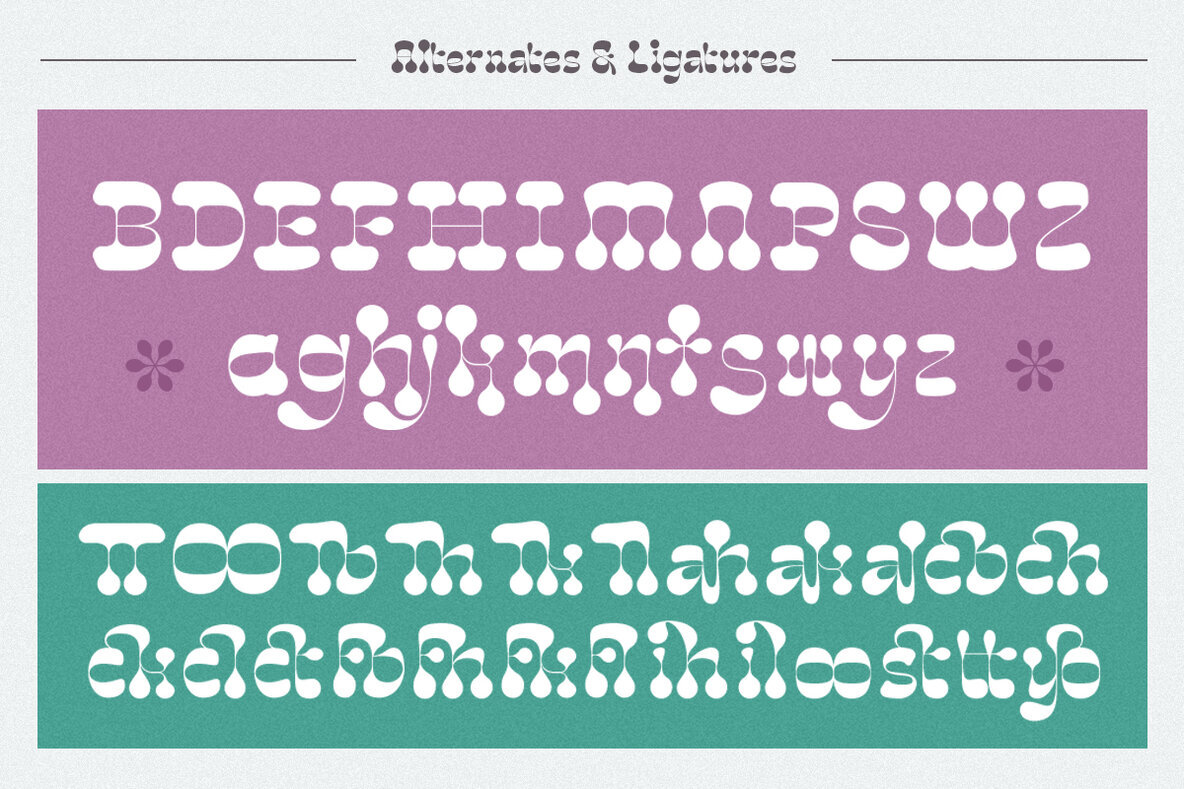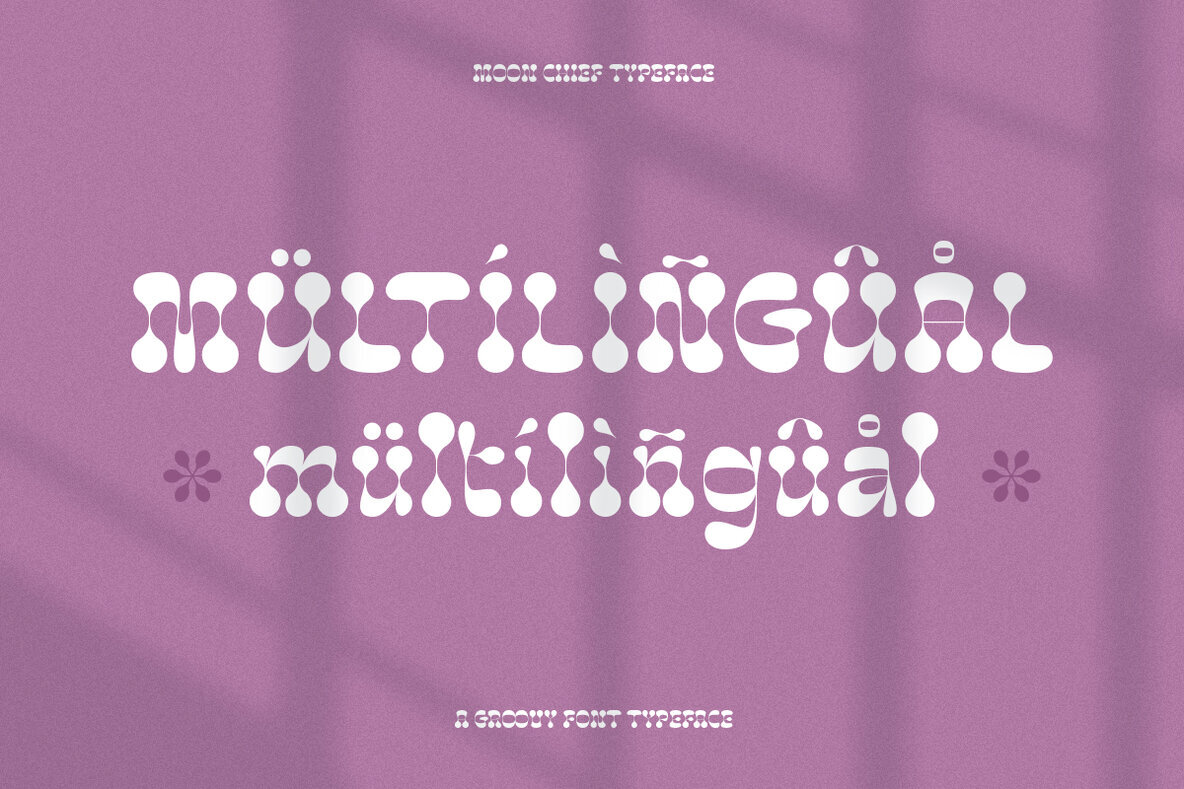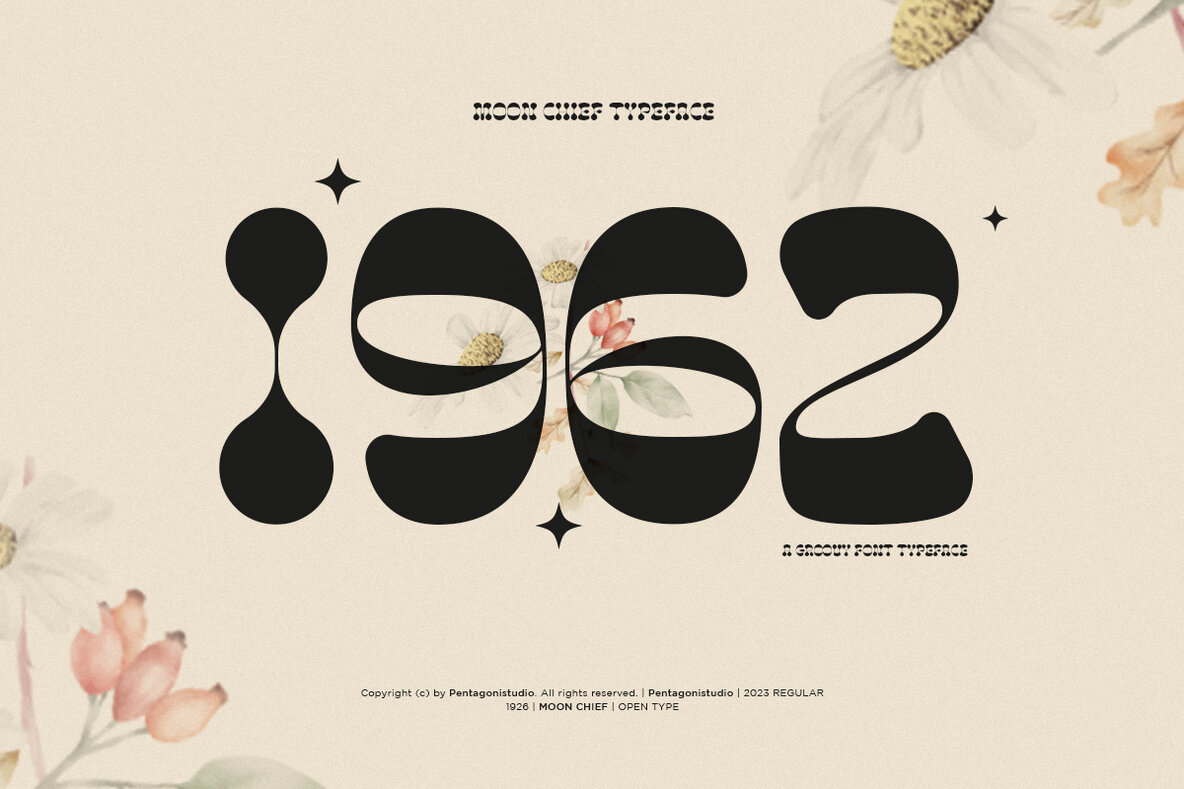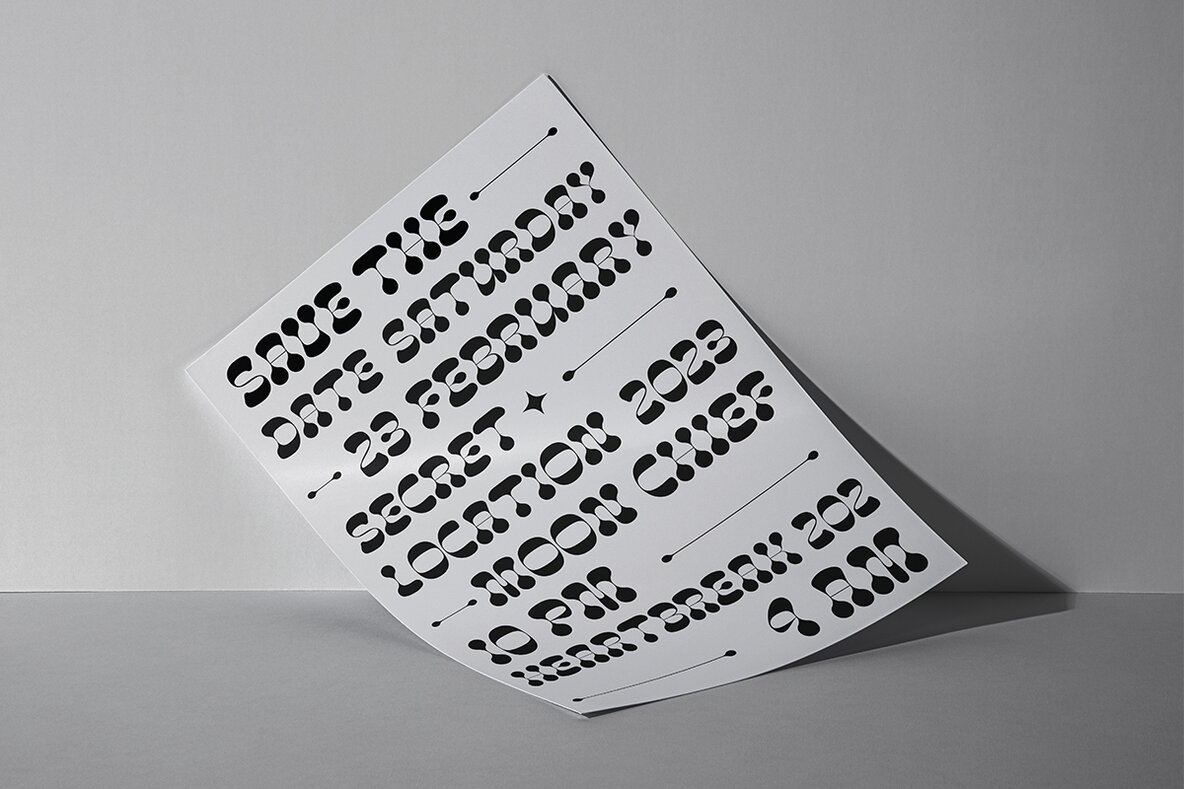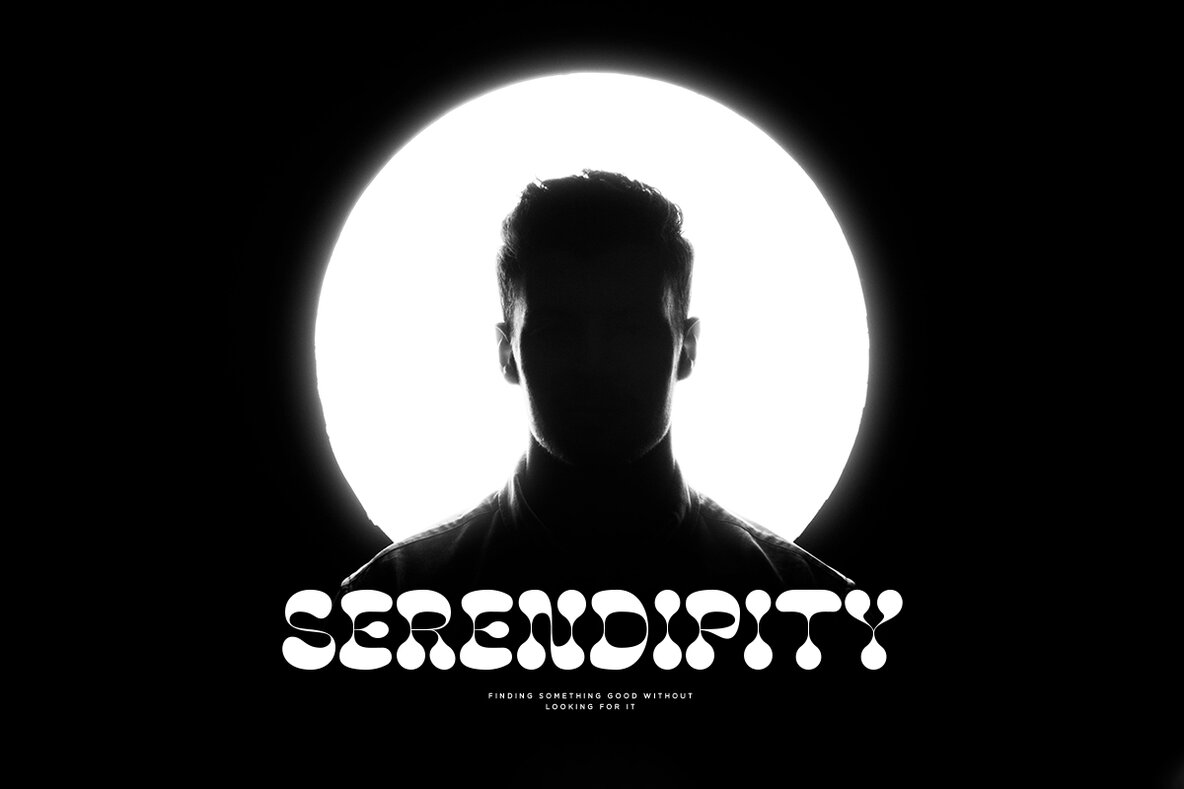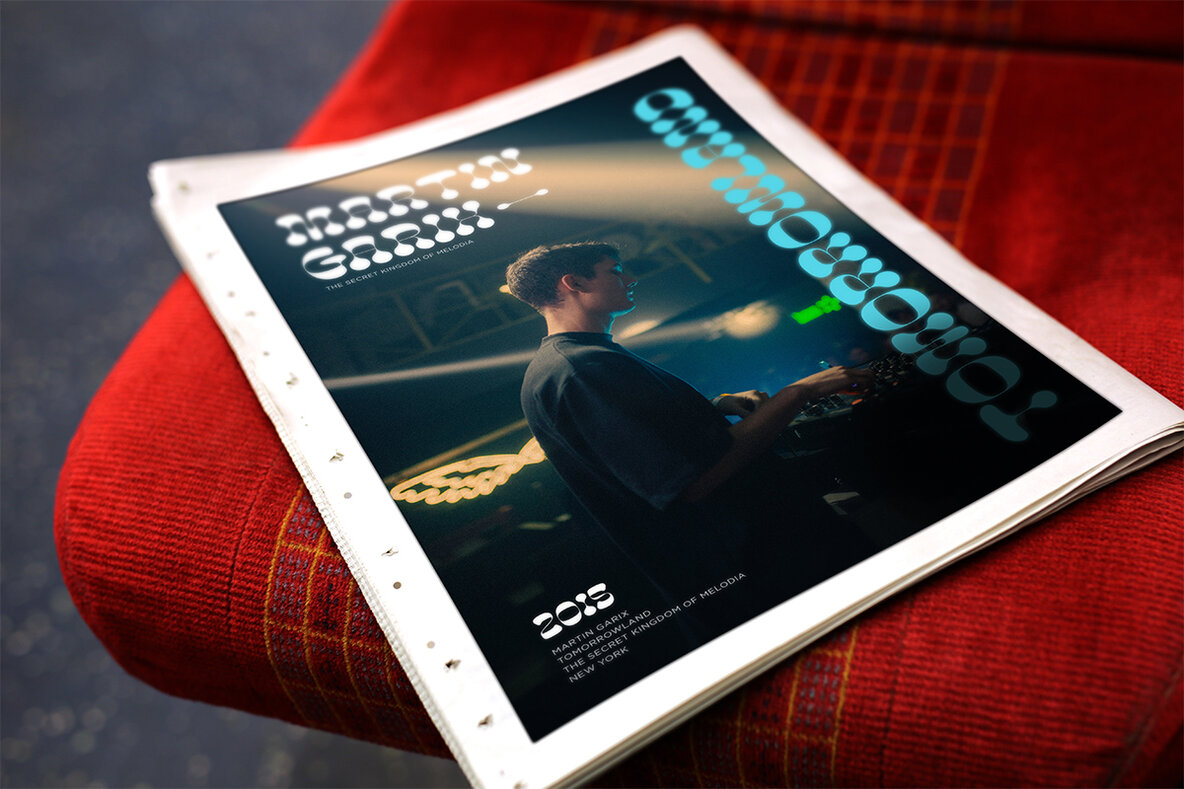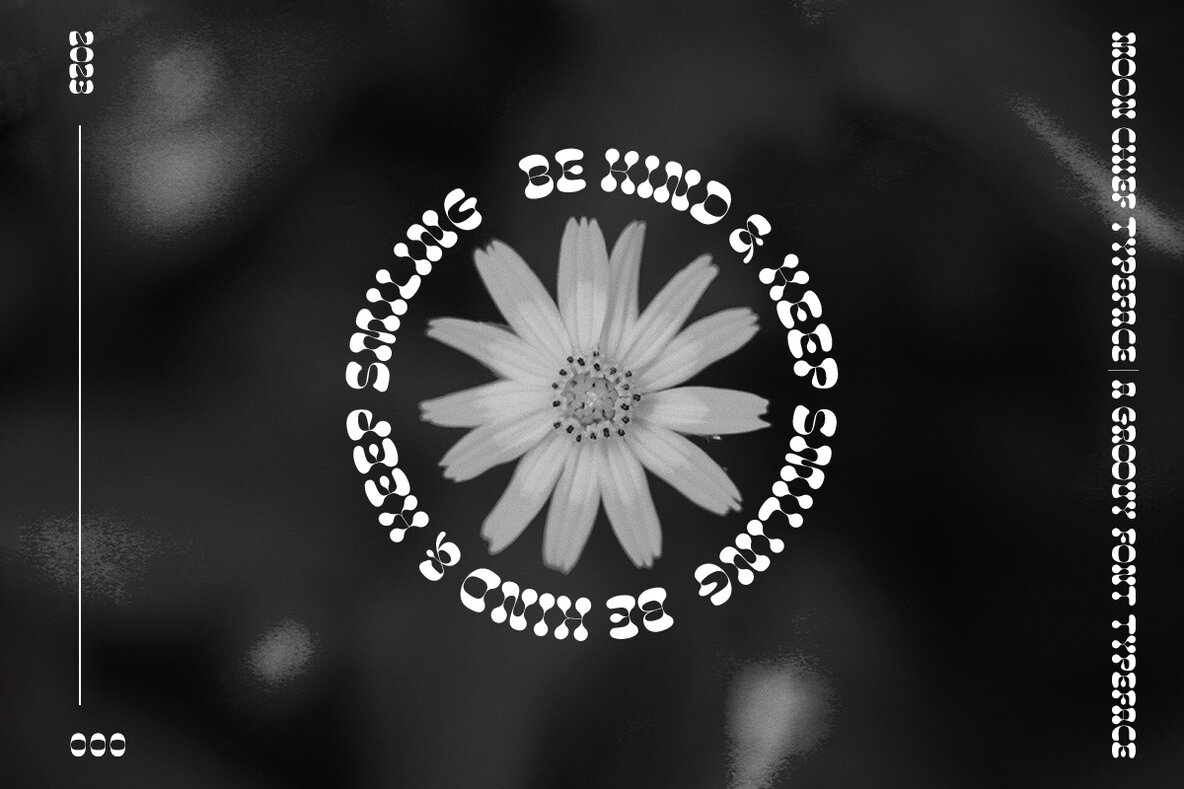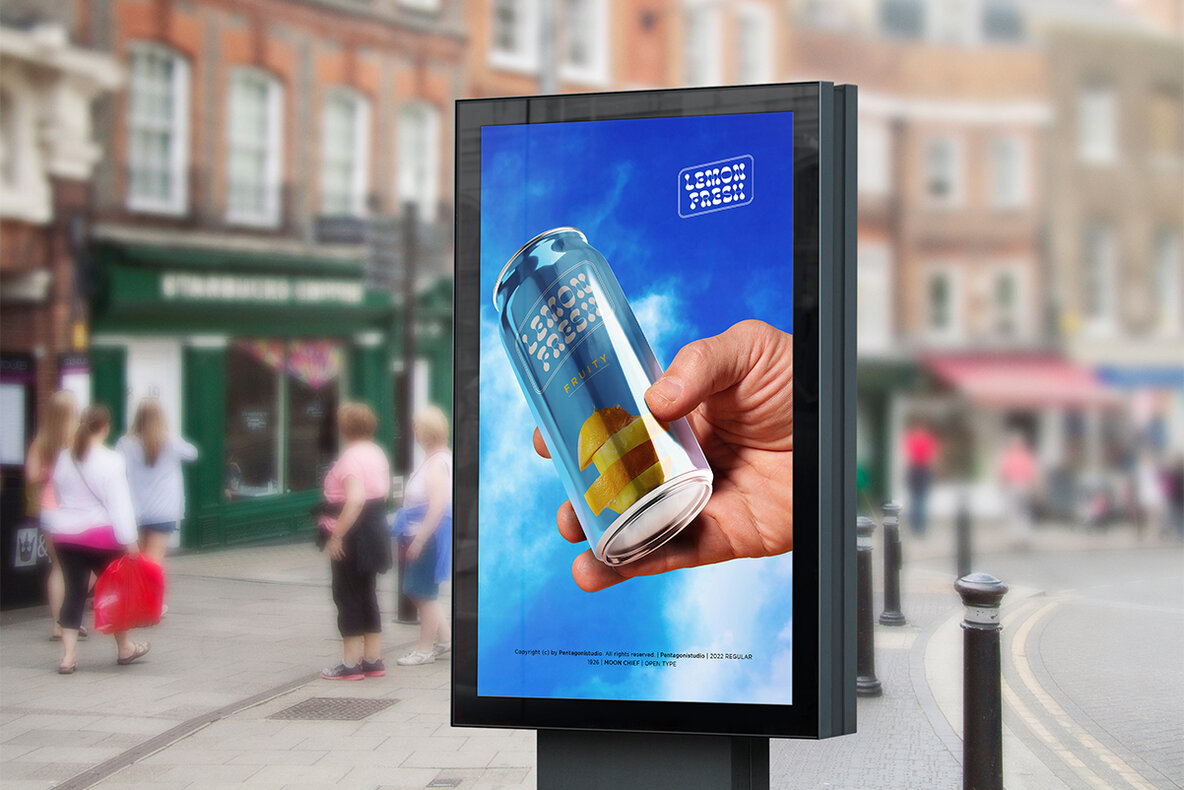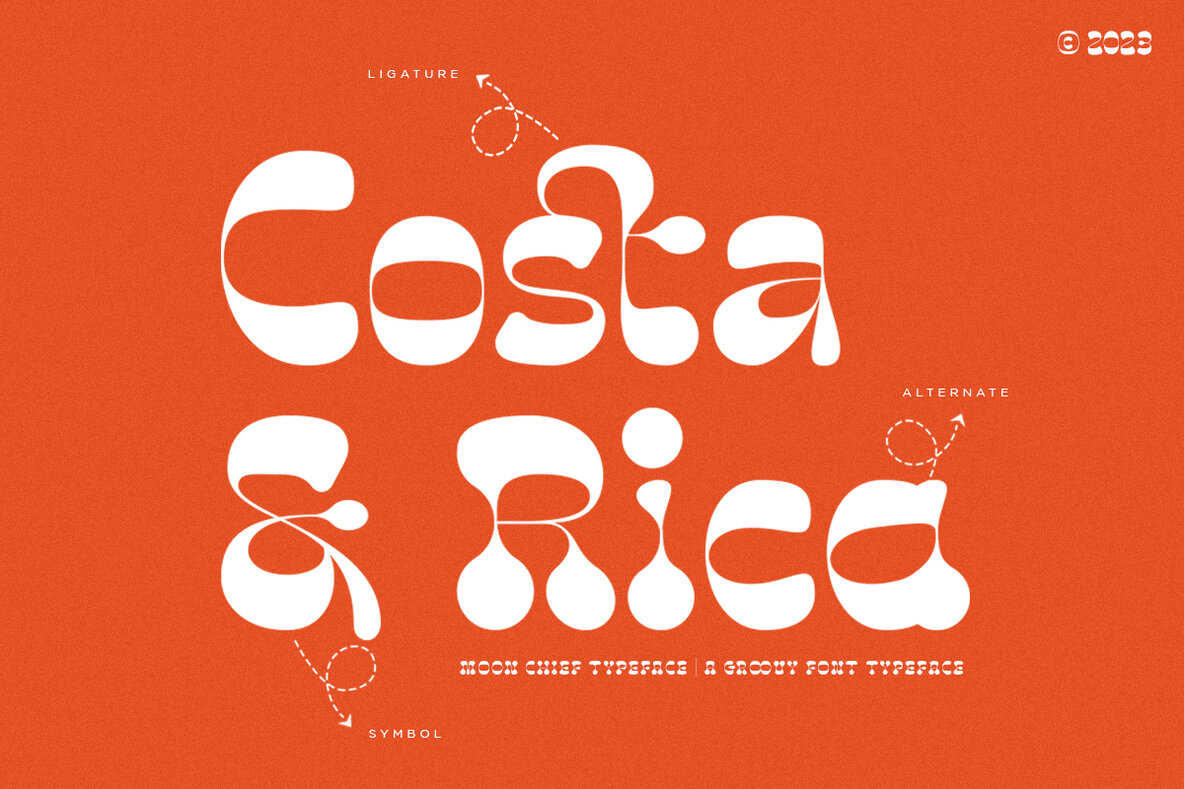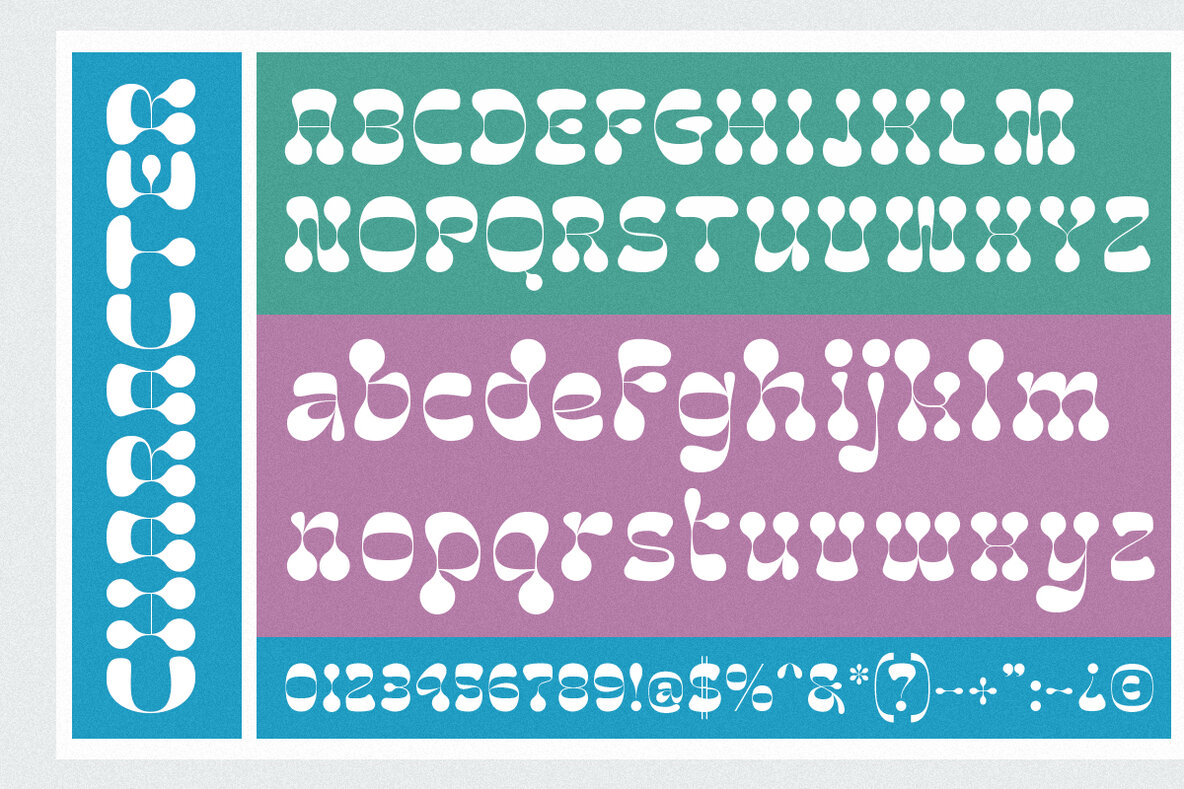
Moon Chief Font
MoonChief
Moon Chief is a display typeface that draws its aesthetic roots from retro and vintage styles, breathing new life into design projects seeking a groovy flair. Moon Chief is compatible with any software that supports standard fonts, requiring no special applications to utilize its features.Moon Chief: A Nostalgic Display Typeface